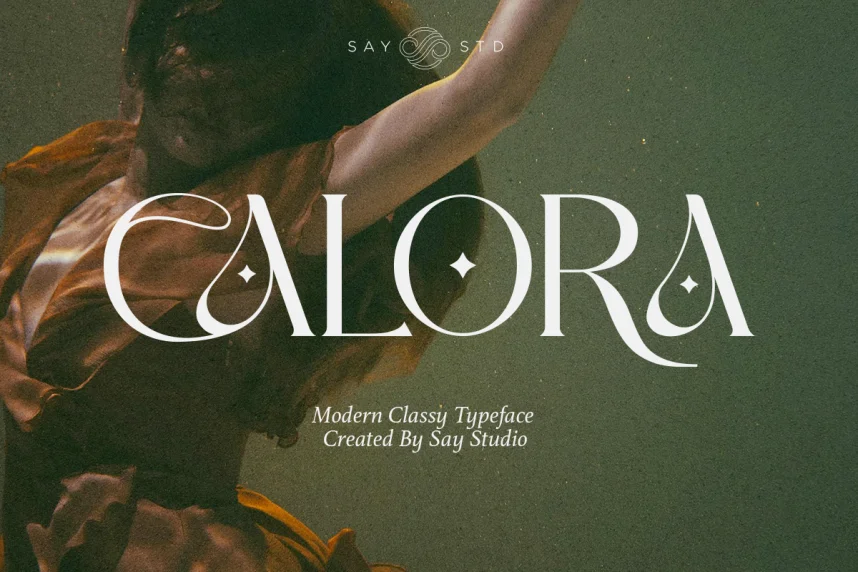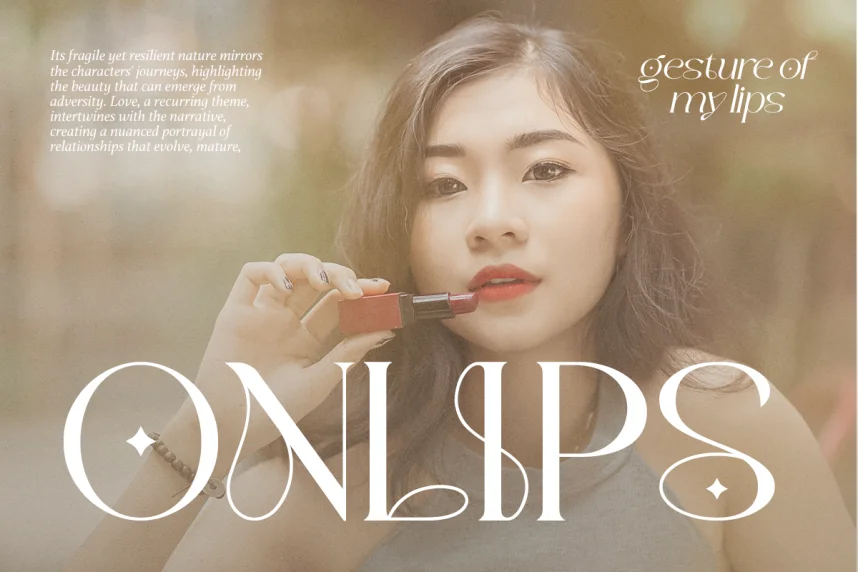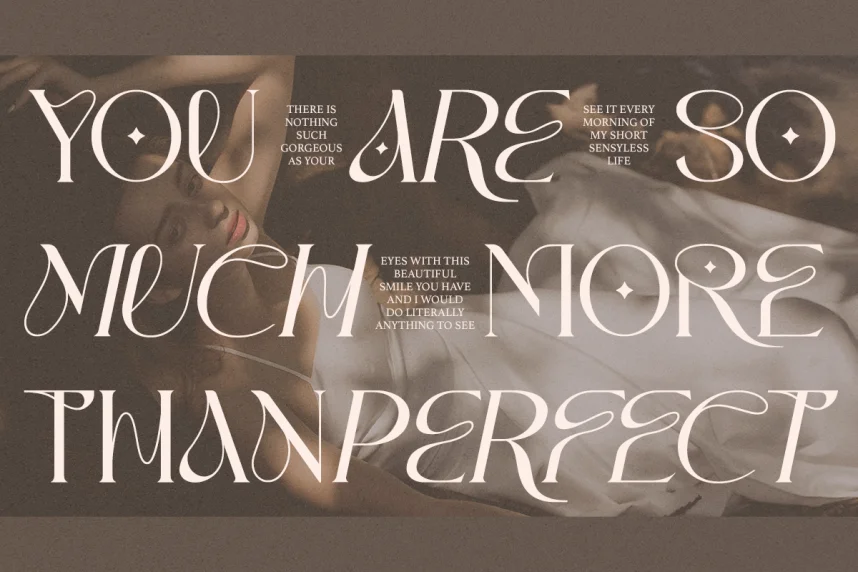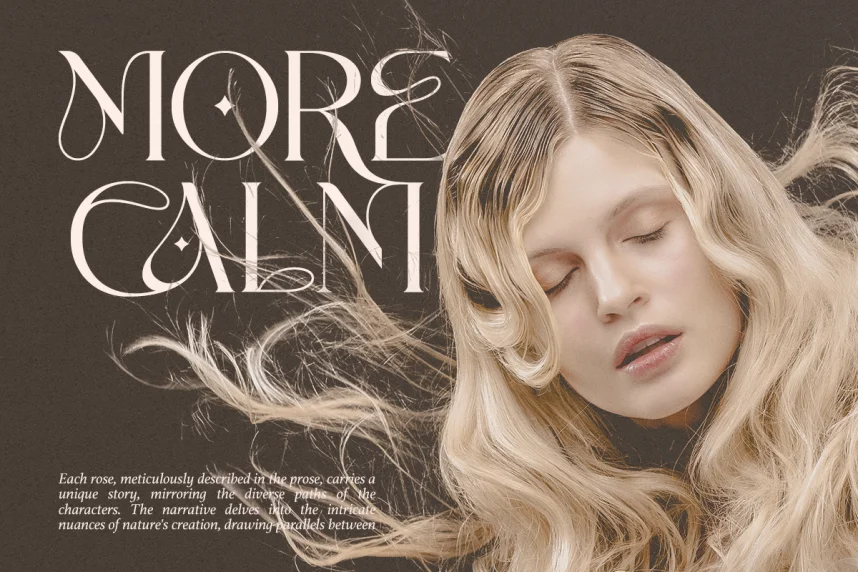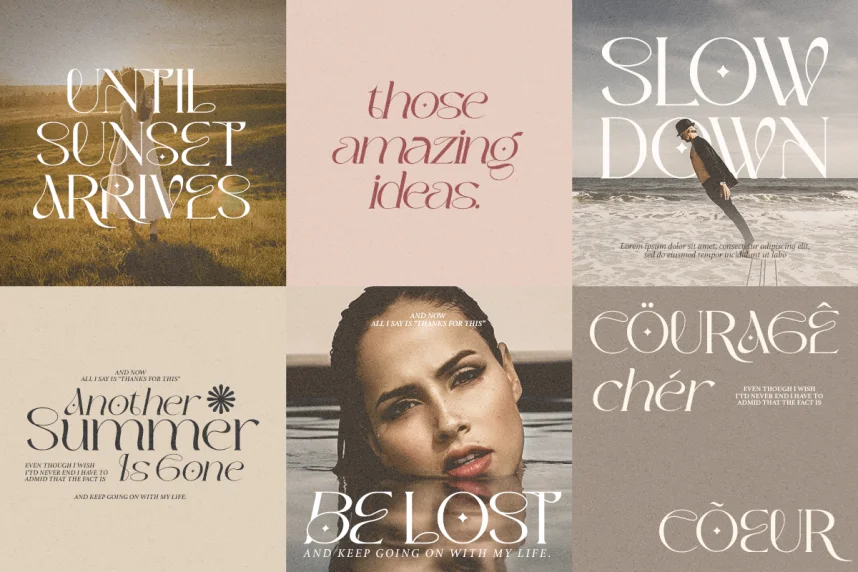
Calora Font addresses the need for stylish display serifs that remain readable in logos, headlines, and printed materials.
Calora is a serif display typeface with moderate contrast, sharp terminals, and slightly condensed letterforms. It balances elegance and clarity for short text.